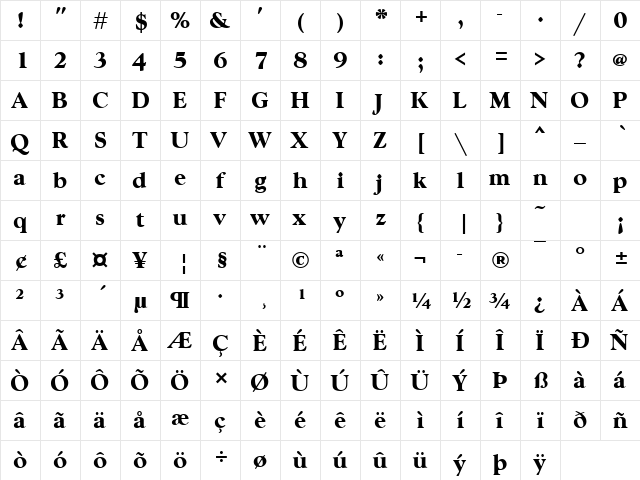
GoudyWtcT Bold
Design Context for GoudyWtcT Typeface
GoudyWtcT offers clean, dependable letterforms without strong stylistic allegiance, making it a practical choice for designers who need flexibility. The heavy weight commands attention and anchors typographic hierarchies.